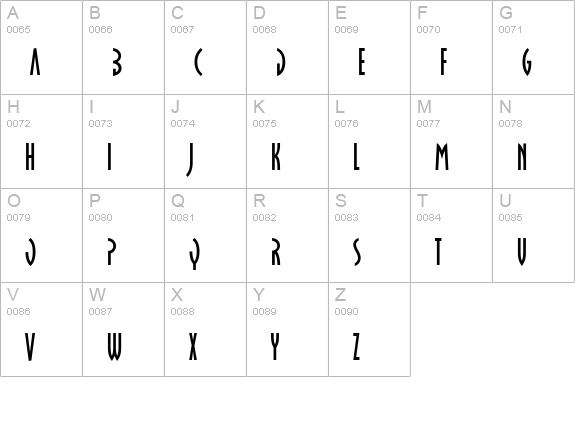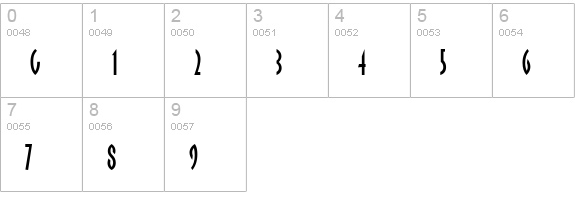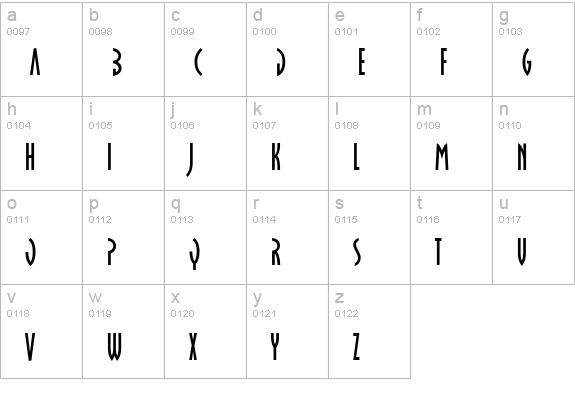
OklahomaSoft-Open Font Details
OklahomaSoft-Open font is a versatile and modern typeface that exudes a sense of creativity and style. With its unique design and soft edges, this font is perfect for a wide range of projects, from branding and logos to posters and social media graphics. What makes OklahomaSoft-Open font even more appealing is that it is available for free! You can easily download this font at FontsMarket.com and start using it in your designs right away. Whether you're a designer looking for a fresh font to add to your collection or a business owner in need of a unique typeface for your marketing materials, OklahomaSoft-Open font is sure to impress. Don't miss out on the opportunity to enhance your projects with this beautiful and free font today!